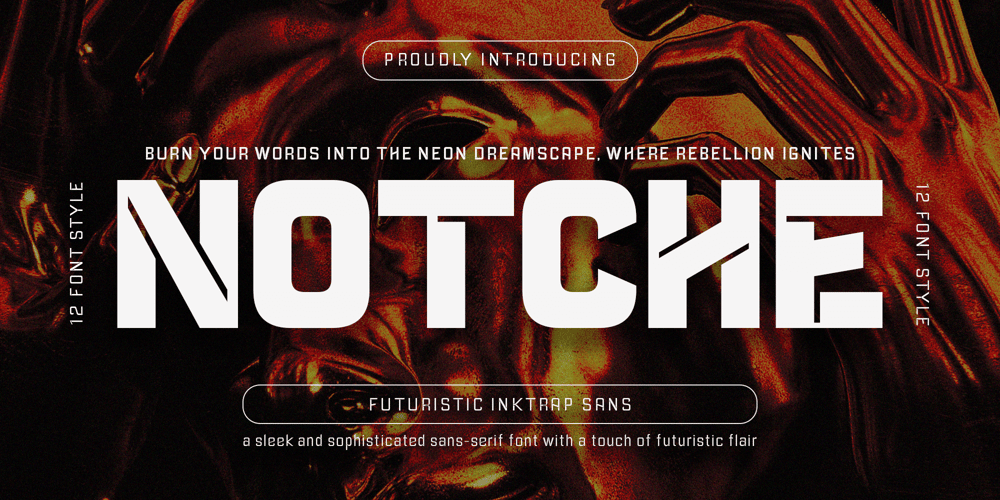
Notche Font Family was designed by Dede Kurniawan and published by Creatifont Studio. Notche contains 12 styles and family package options. Notche – is a sleek and sophisticated sans-serif font with a touch of futuristic flair. Its clean lines, inktrap details, and versatile styles make it a powerful tool for designers seeking to create modern and impactful designs. Whether you’re crafting a sci-fi movie poster, designing a cutting-edge website, or simply adding a touch of sophistication to your next project, Notche is a font that deserves a closer look.A SUMMARY OF WHAT’S INCLUDED: Standard Character A-Z, a-z, 0-9, Punctuation & symbol Multilingual support 6 Styles Font (Black, Extra Bold, Bold, Semi Bold, Medium, Regular) Italic/Oblique font for each style Works on PC & Mac Simple installation Accessible in Adobe Creative Suite (Ai, Ps, Id, etc.) even work on Microsoft Word. PUA Encoded Characters – Fully accessible without additional design software. 🌟If you come across any issues or notice anything we might have overlooked while using this product, please feel free to reach out to us. We greatly value your feedback as it helps us enhance and refine our products. Thank you!